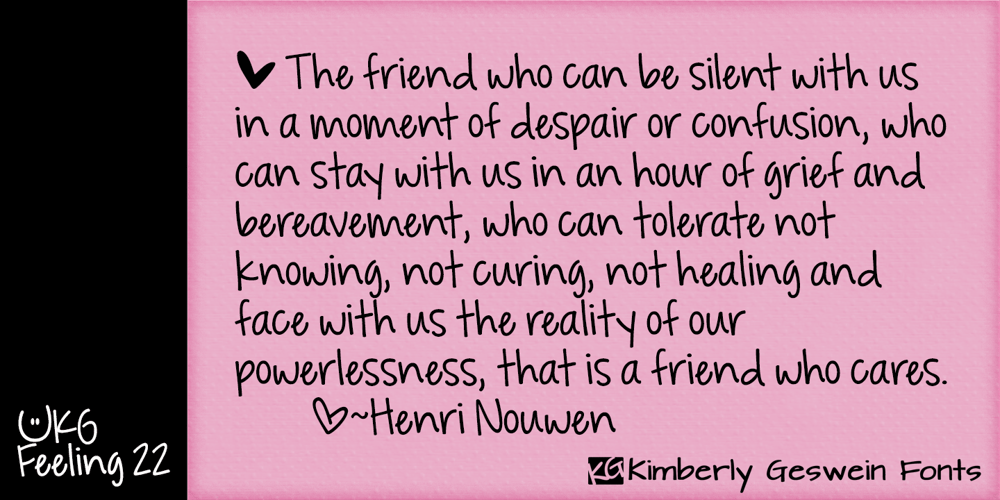
KG Feeling 22
KG Feeling 22 font
KG Feeling 22 Font Family was designed by Kimberly Geswein and published by Kimberly Geswein. KG Feeling 22 contains 1 styles and family package options. The handwriting of a college student – complete with the whimsical nature of a student jotting down notes to friends or doodling in her journal.